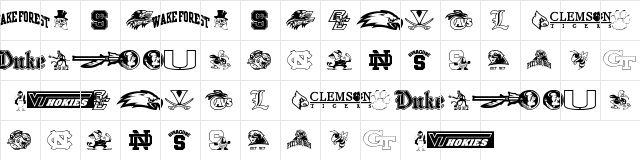
NCAA ACC Regular
Design Context for NCAA ACC Typeface
NCAA ACC is a composed and adaptable typeface that performs quietly and consistently across a wide range of design contexts.